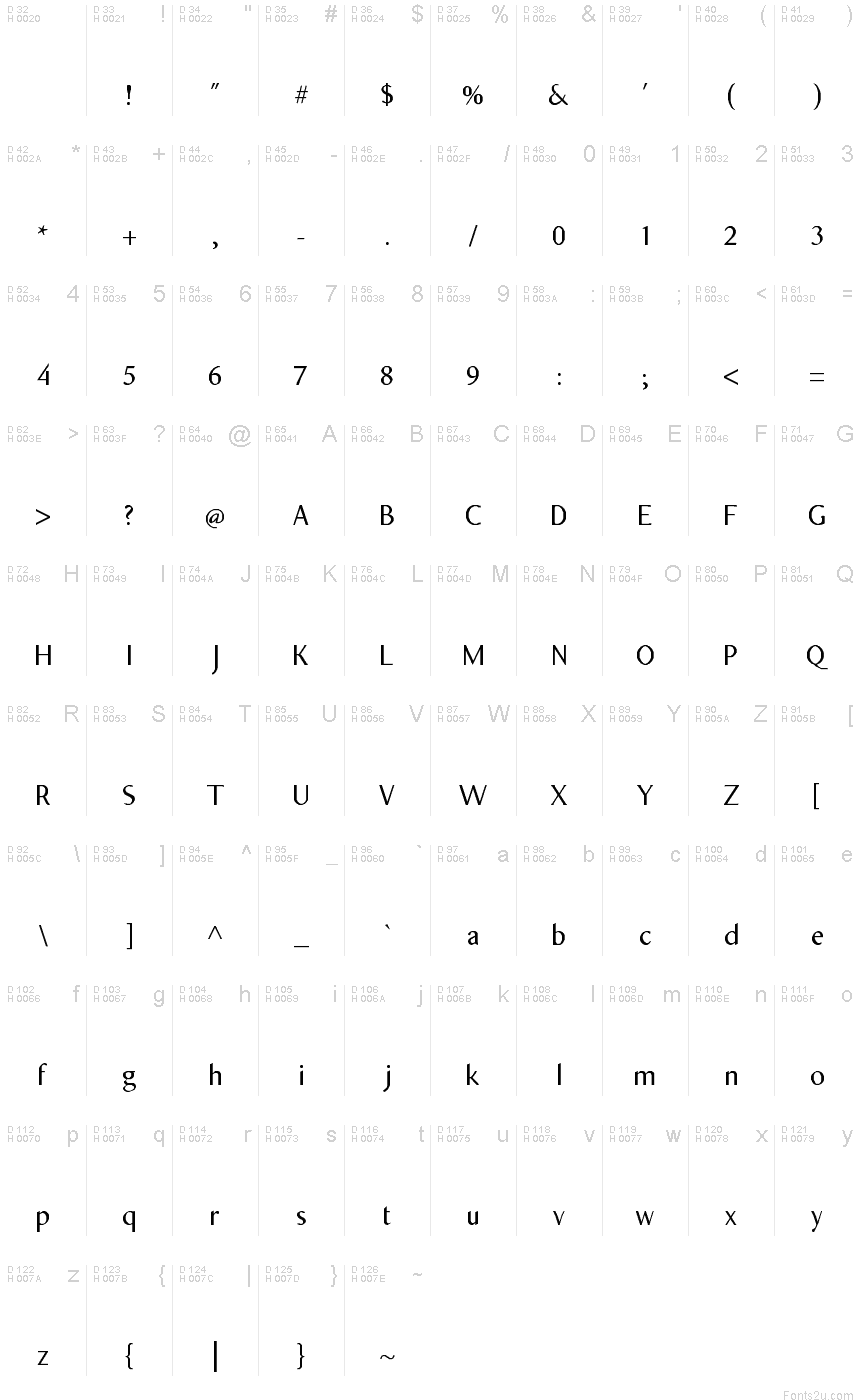
Opirus Semi-Serif by opipik is a free semi-serif display font based on Formal Roman by caliopigio. Its slender strokes shift between spare geometric forms and subtly flared joins, with rounded bends that keep the lettering from feeling severe.
Designers drawn to unconventional modernist type will find it suited to cultural posters, fashion editorials, and record sleeves. The uneven stroke endings feel deliberately handmade. In boutique branding and fragrance packaging, those fine angular details can become the product's identifying mark.